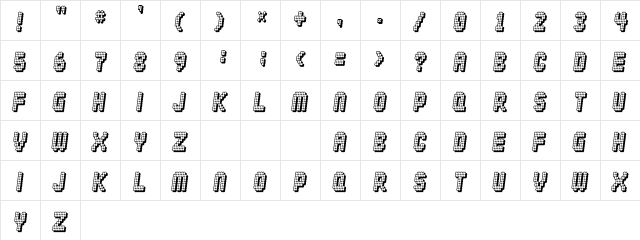
Diskoteque Regular
Design Context for Diskoteque Typeface
Diskoteque is a composed and adaptable typeface that performs quietly and consistently across a wide range of design contexts.